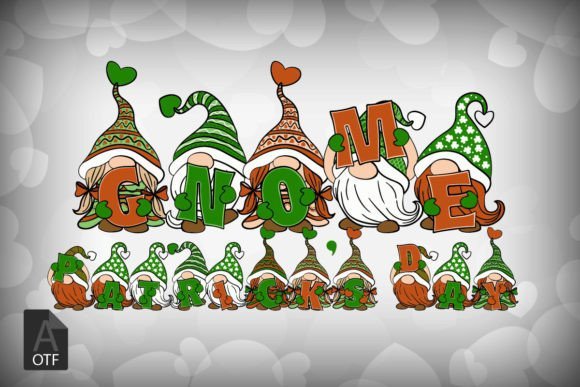
Introduction to Gnome Patrick’s Day Font
Gnome Patrick’s Day is a great color font.
This font is eye-catching and highly detailed Regardless of the theme, it will be a great resource for your font library, as it can help you create any design.
Gnome Patrick’s Day Font offers exceptional quality and versatility, making it a valuable addition to your design toolkit. Whether you’re creating for personal projects or commercial use, Gnome Patrick’s Day Font delivers professional results.